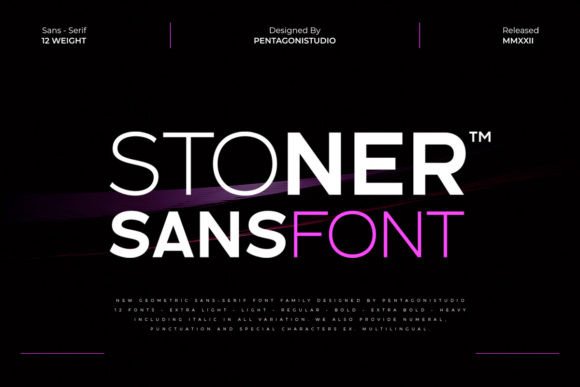
Introducing Stoner Font, the ultimate choice for those seeking the best fonts on Canva for quotes. Created by Pentagonistudio, this modern and fresh sans serif font is designed to captivate and inspire. Its versatility knows no bounds, making it a must-have addition to your fonts' library.
With Stoner Font, your creative possibilities are limitless. Whether you're crafting motivational quotes, designing captivating social media graphics, or working on a professional presentation, this font will effortlessly elevate your creations to new heights. Its sleek and contemporary design exudes confidence and sophistication, leaving a lasting impression on your audience.
Indulge in the power of emotional expression with Stoner Font. Its carefully crafted curves and clean lines evoke a sense of elegance and refinement, making every word you write or design visually striking. Each character possesses a unique charm, injecting personality into your projects and ensuring they stand out from the crowd.
Unlock a world of creativity with this keyword-rich gem. Stoner Font seamlessly blends with any style or theme, adapting effortlessly to suit your vision. Whether you're aiming for a bold and edgy look or a minimalistic and sleek aesthetic, this font has you covered. Its adaptability allows you to experiment, ensuring your designs are as unique as your imagination.
Downloading Stoner Font means embracing a new level of professionalism and impact. Its flawless legibility ensures that your message is effortlessly communicated, leaving no room for confusion. Say goodbye to dull and generic fonts that fail to leave an impression. With Stoner Font, you have a powerful tool at your fingertips, ready to captivate and engage your audience like never before.
Join the ranks of the design-savvy and turn heads with your impeccable taste. Make a statement with Stoner Font and watch as your creations come to life. This font is more than just a collection of letters; it's a gateway to unlimited creative possibilities. Let it inspire you, motivate you, and empower you to create designs that leave a lasting impact.